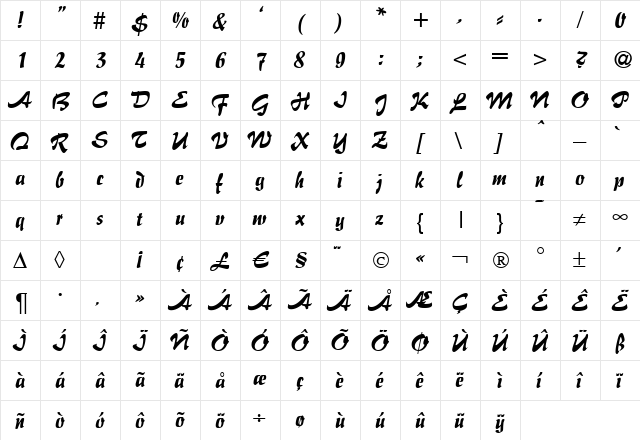
Script-I770 Regular
Design Context for Script-I770 Typeface
Script-I770 brings a calligraphic fluidity to the page — its connecting strokes and expressive curves give it an unmistakably human quality.
Font Pairing: Combine Script-I770 with a simple geometric sans for maximum contrast — the tension between flowing curves and clean structure is a classic typographic pairing.
Pro Tip: Use Script-I770 for short runs of text — names, titles, or taglines. Extended body copy in script faces tires the eye quickly.